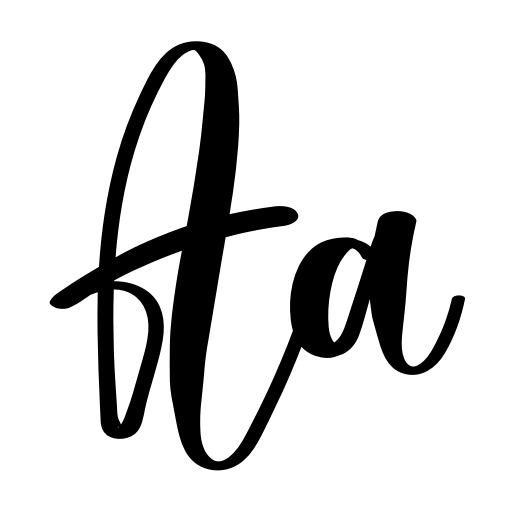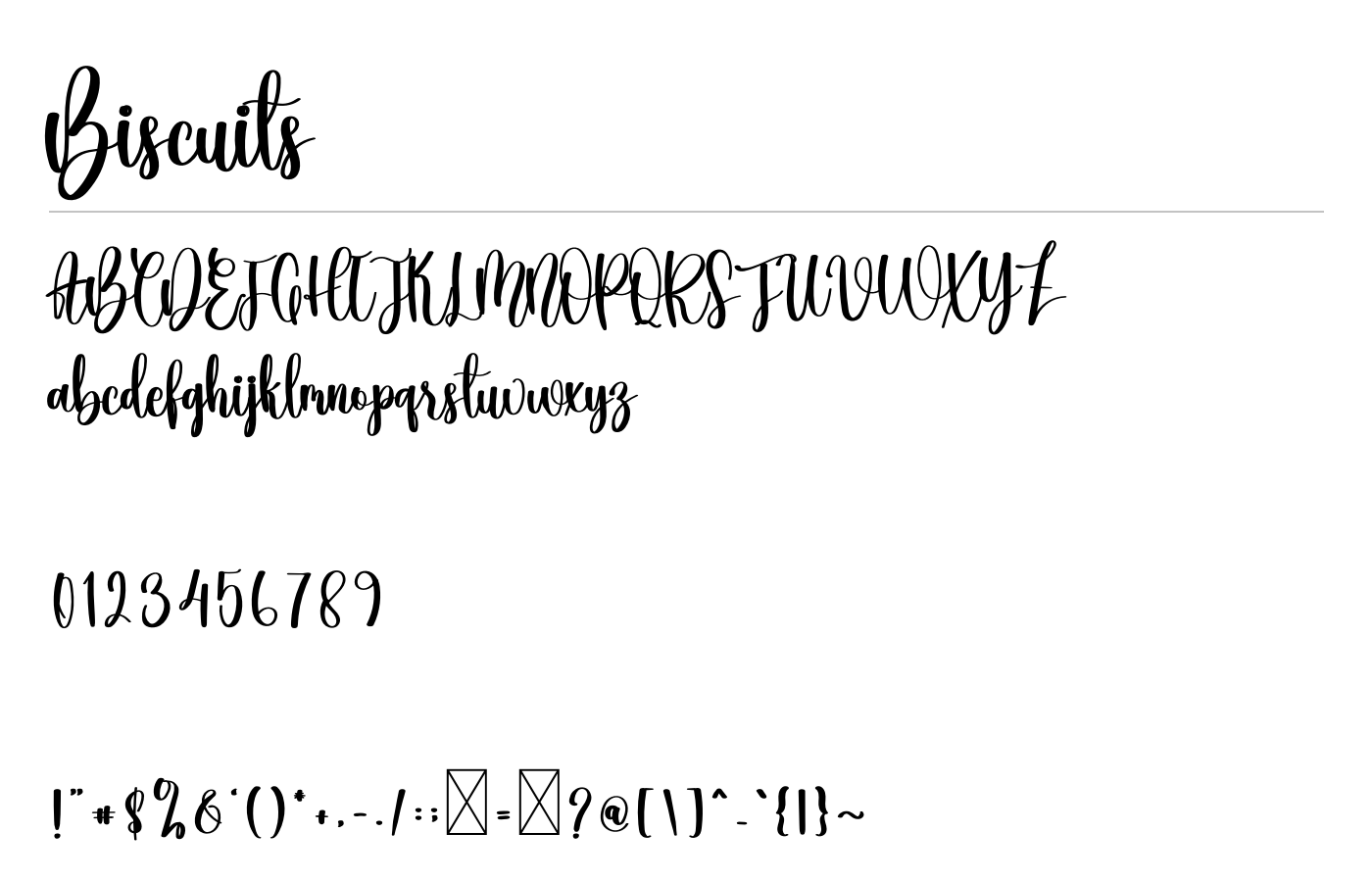
Biscuits Font is a playful and elegant script typeface with a lively, hand-drawn feel. Its smooth, flowing strokes and varying line thickness give it a warm, inviting personality, making it perfect for creative projects, branding, and invitations that seek a personal touch. This font shines in headlines, logos, and packaging where a friendly, stylish script can add charm and character.
Biscuits Font
About Biscuits Font